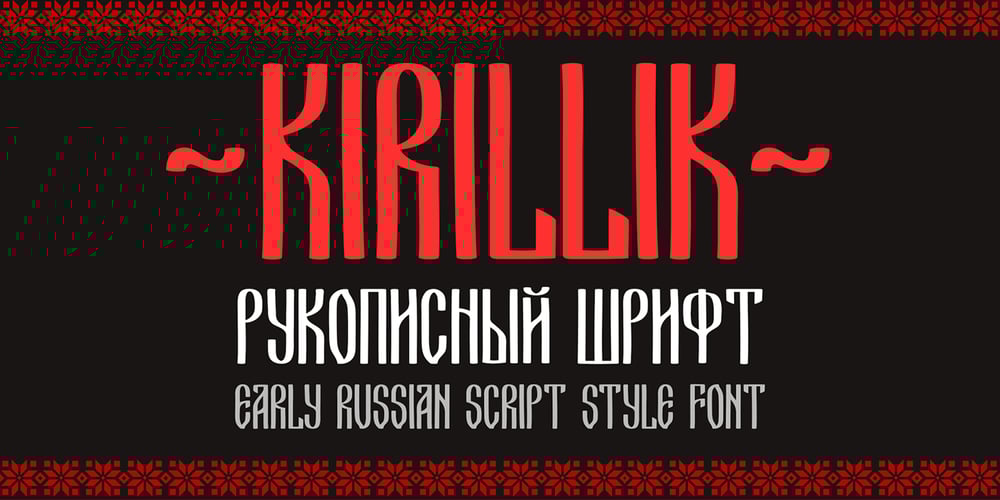
Kirillik Font Family was designed by Irina Miroshnichenko and published by Irina Mir. Kirillik contains 1 styles and family package options. Kirillik is a hand-drawn font, based on early Russian cyrillic script (“Ustav”), elegant calligraphy written with flat ink brush. Traditional Slavic feel for ethnic Russia-inspired design.This is an all caps font that includes Latin and Cyrillic alphabet with extra characters (covering most European languages), numbers, punctuation and symbols.